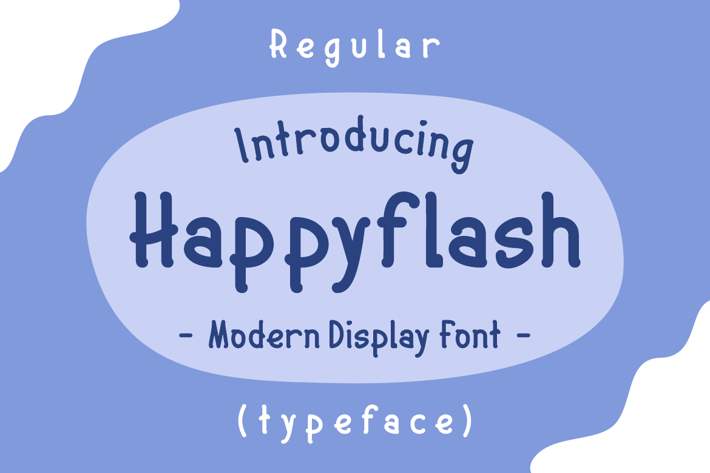
Happyflash Font
Introducing our new product Happyflash Font - Modern Font
Happyflash Font - Modern Font is a bold and authentic display font. The font is suitable for any branding project like logo, t-shirt printing, esport, and many more. outstanding in a wide range of contexts.